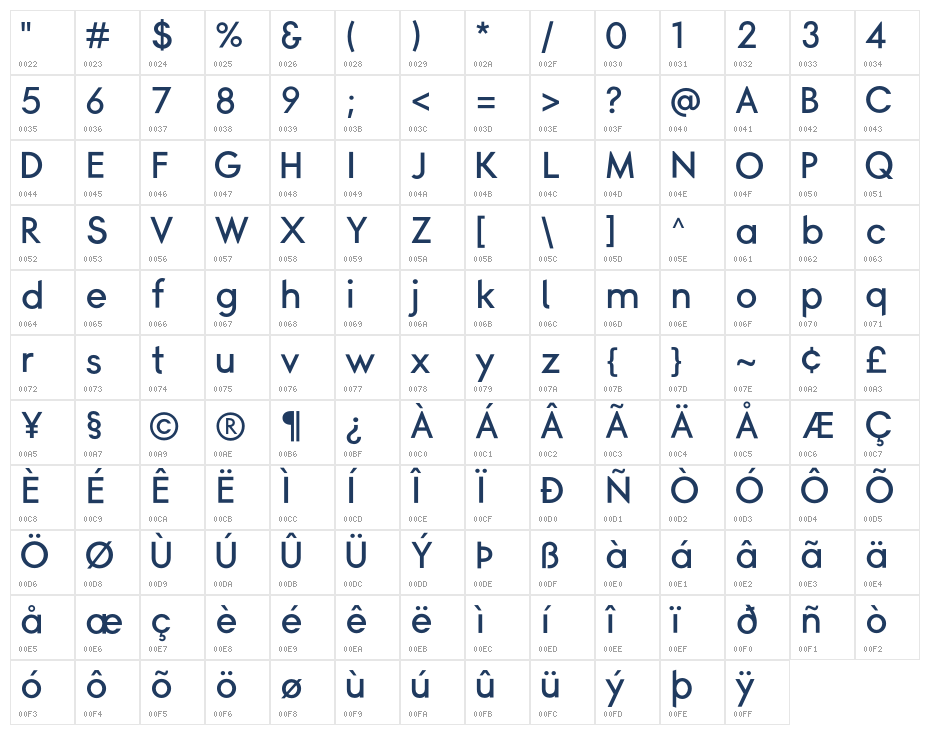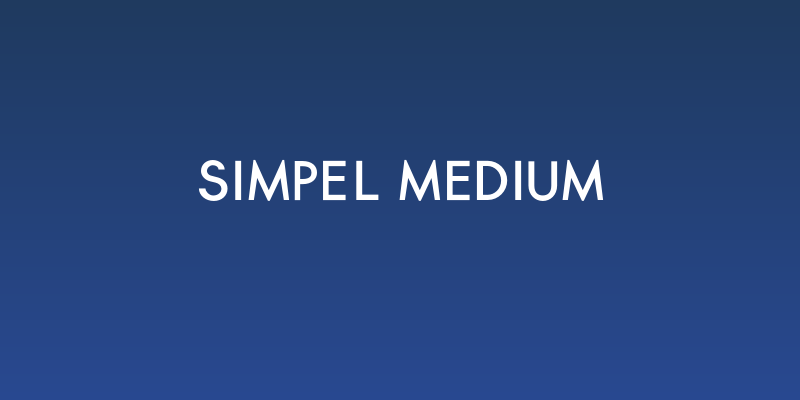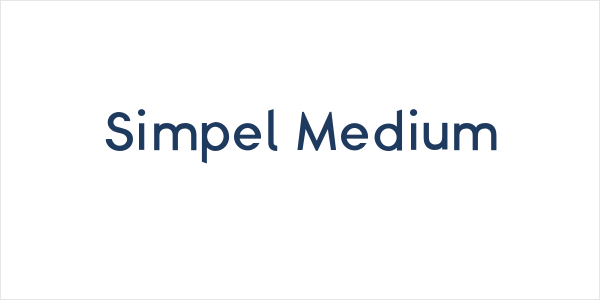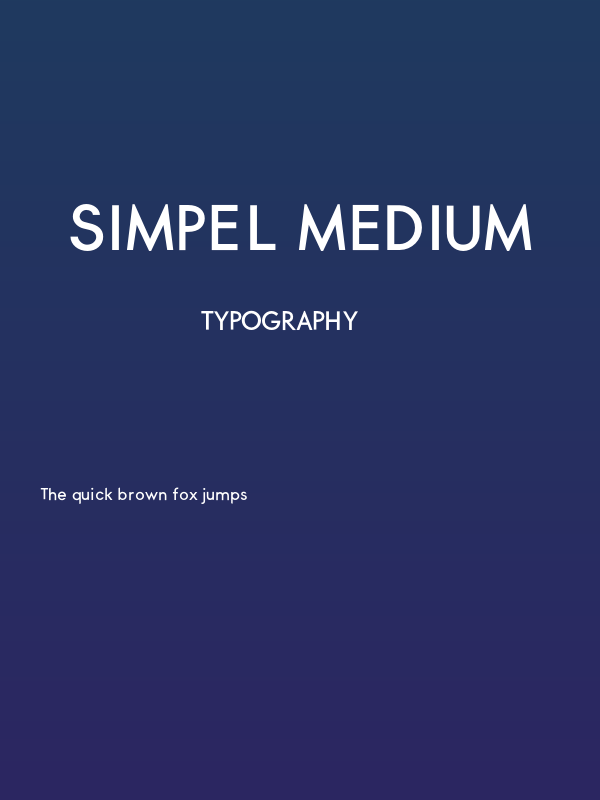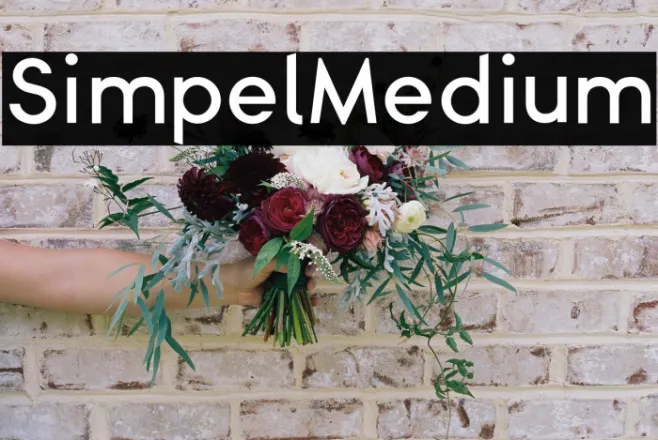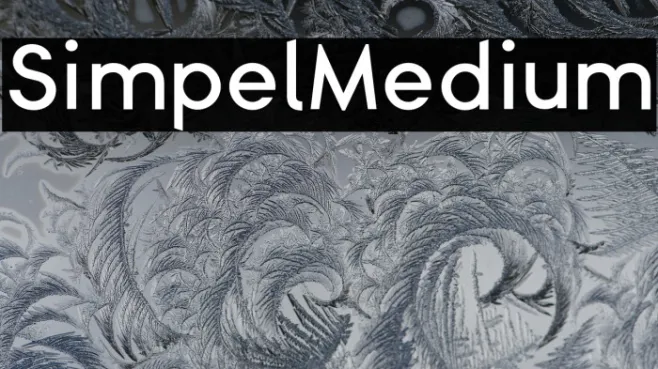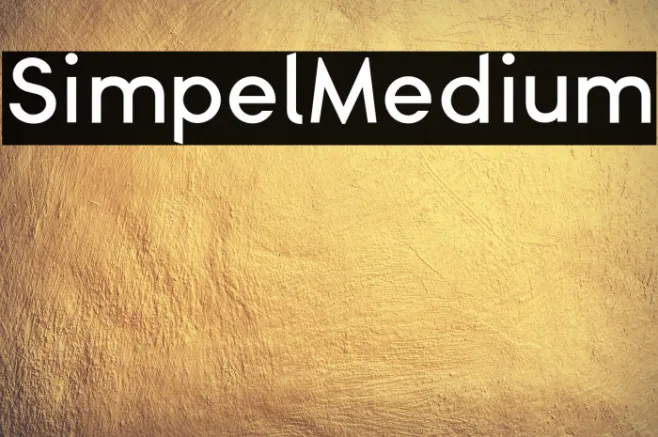
Simpel Medium Font
Simpel Medium Description
A clean, modern sans-serif font with uniform stroke width and slightly rounded edges, suitable for digital and print use.
| Overall Style | Modern, Minimalist |
| Use Case | Headlines, Body text, Logos, Digital interfaces |